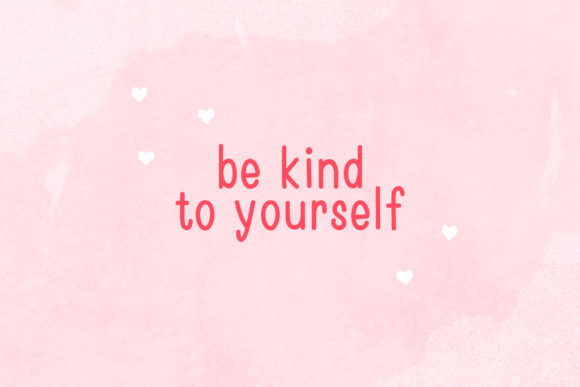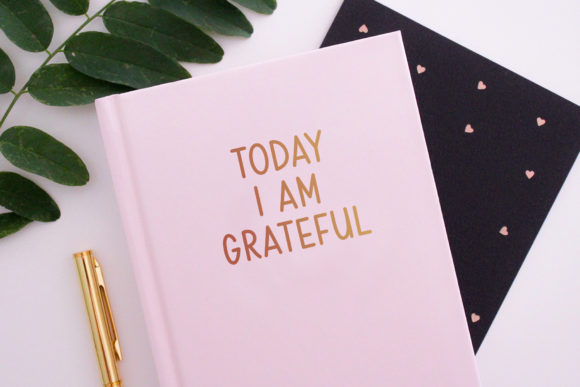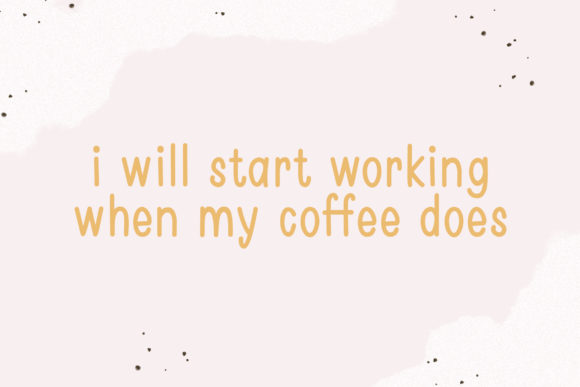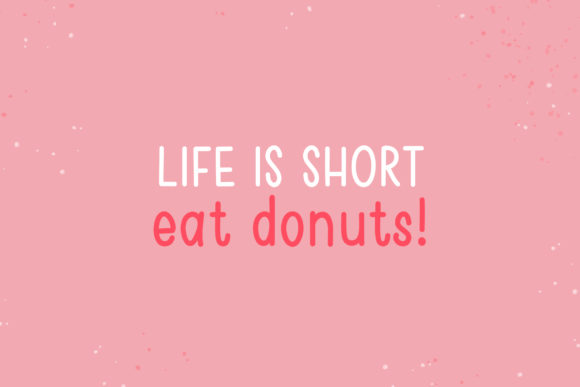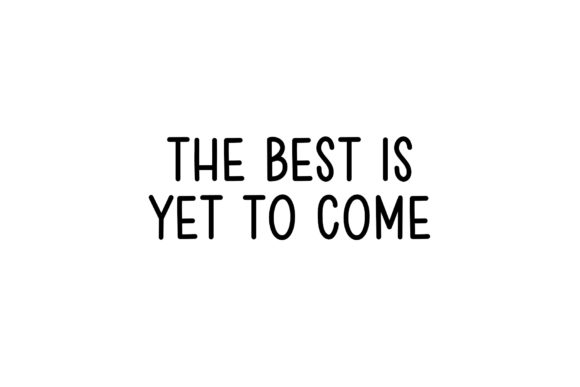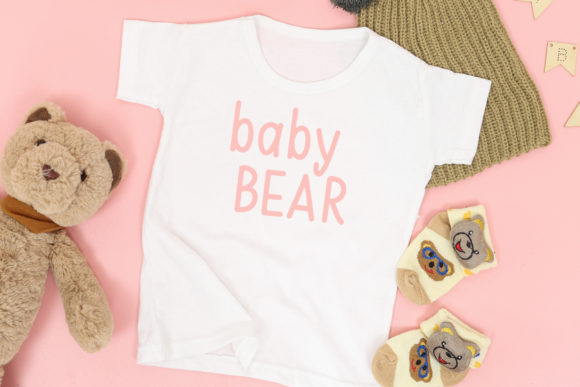
Introduction to Pink Sprinkles Font
Pink Sprinkles is a casual handwritten font with authentic characters.
Its laid-back vibe is incredibly versatile, and it can be used in everything from childrenโs products to packaging, social media and more .
Key Features of Pink Sprinkles Font